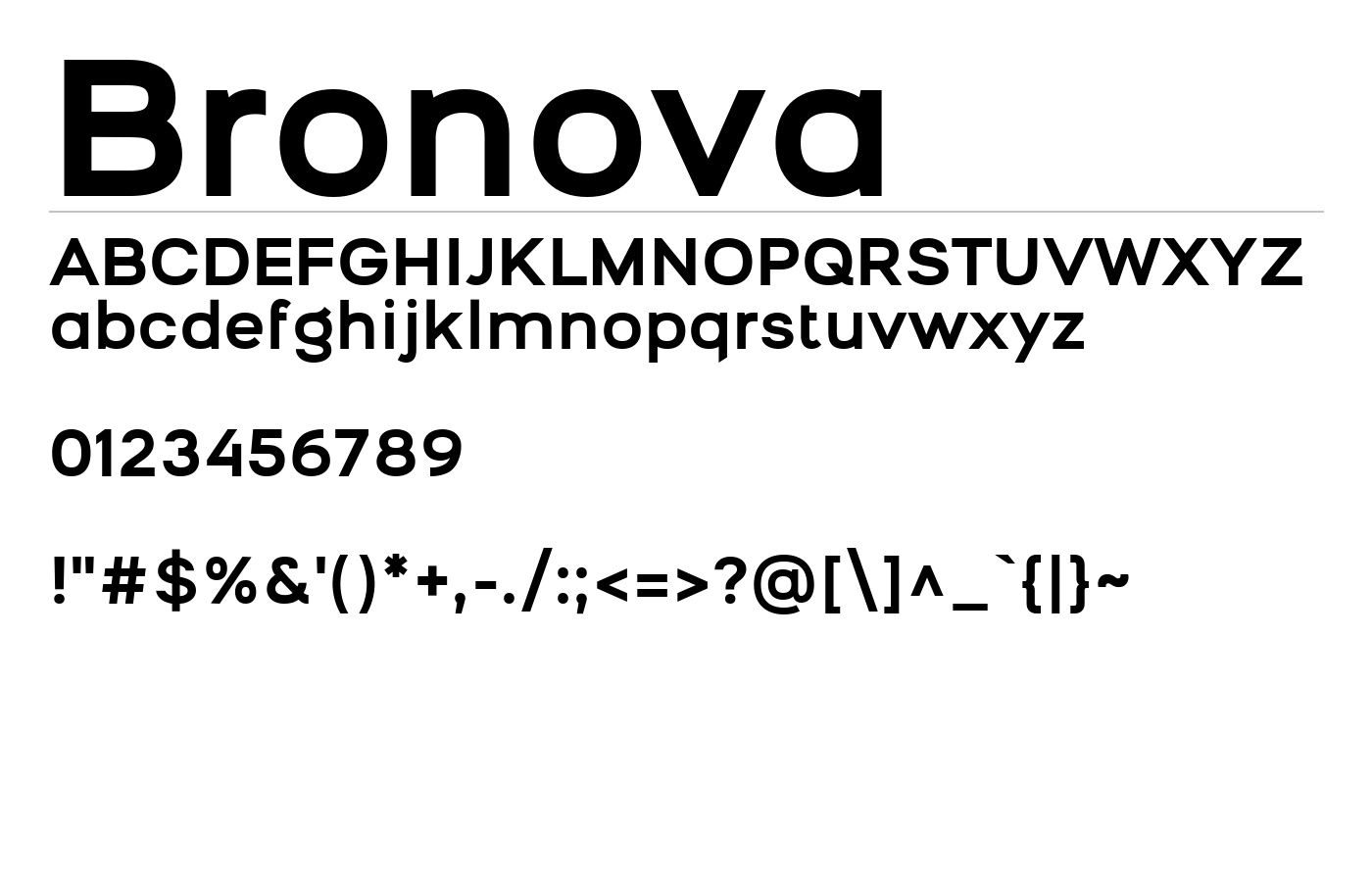
Bronova is a clean, modern sans serif font with a balanced, regular weight and a slightly wide, open feel that enhances readability. Its simple geometric shapes, uniform stroke contrast, and well-proportioned lowercase letters make it versatile and approachable, perfect for both digital and print use. This font works especially well for branding, headlines, and user interfaces where clarity and a contemporary look are key.
Bronova Font